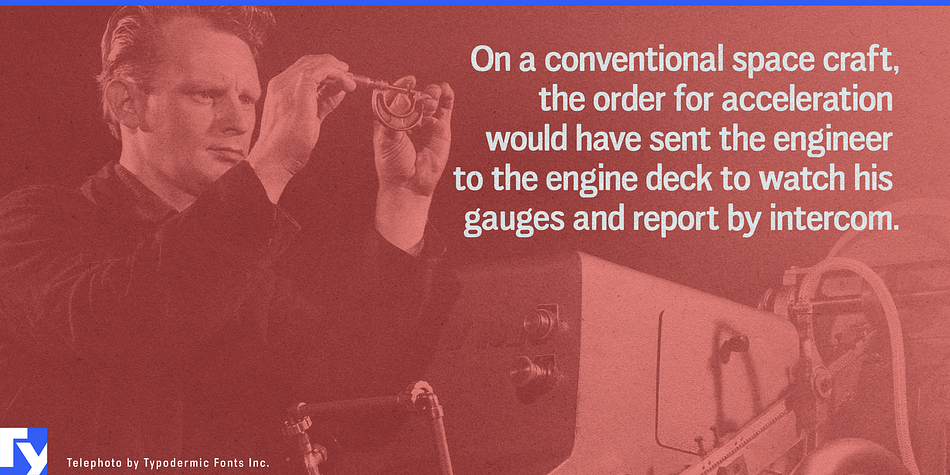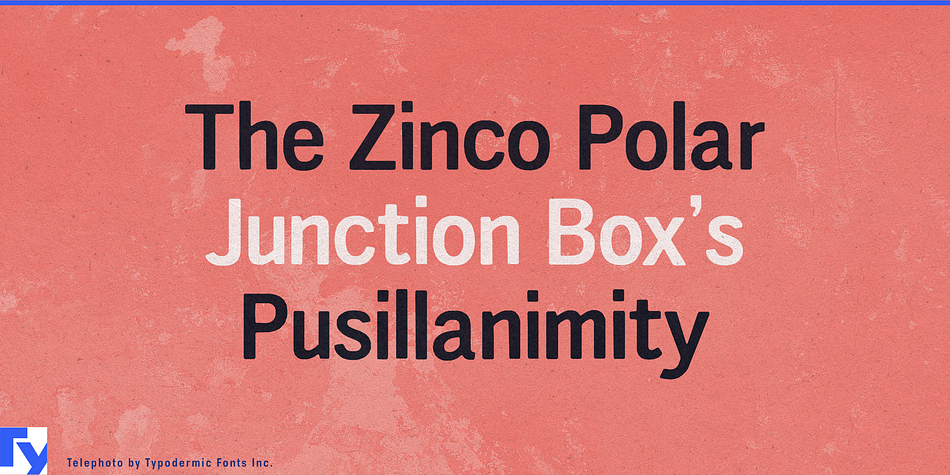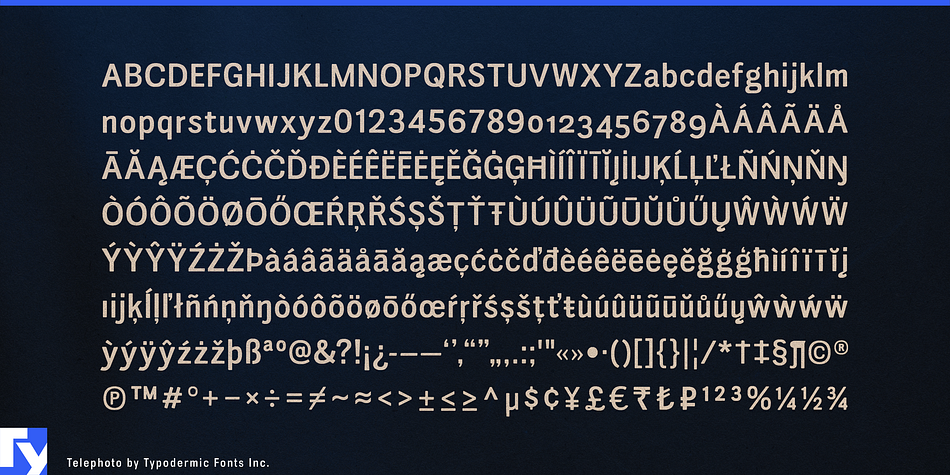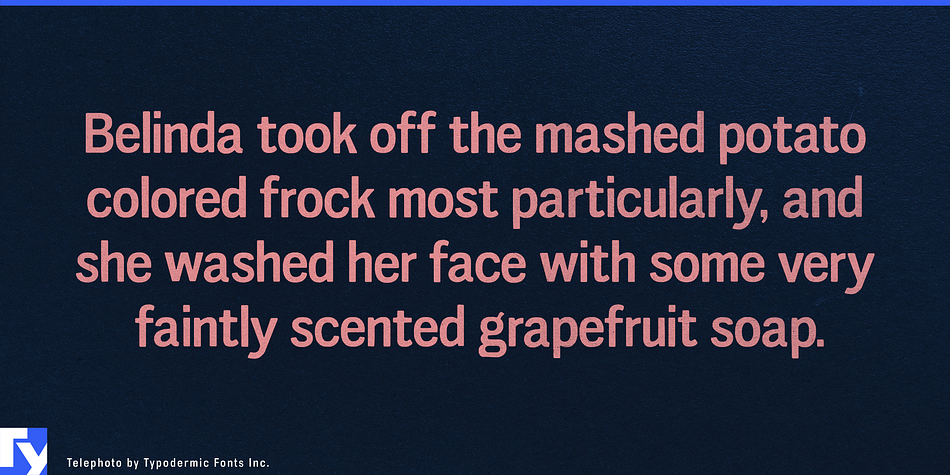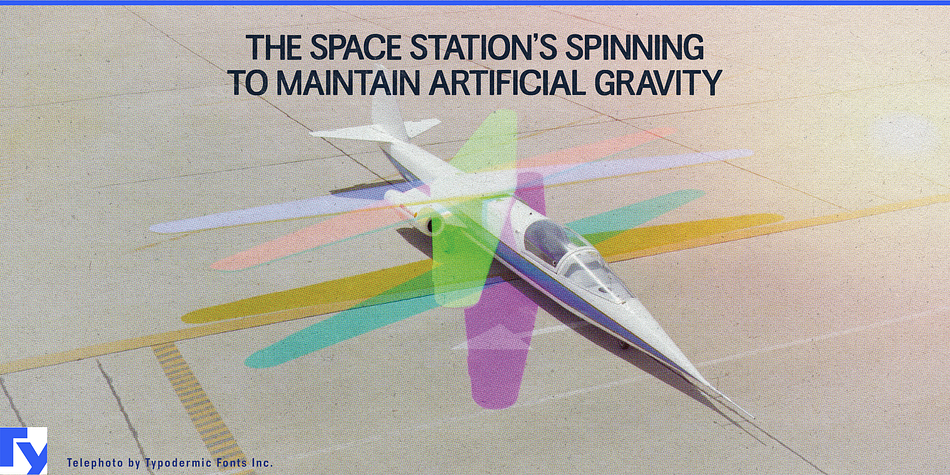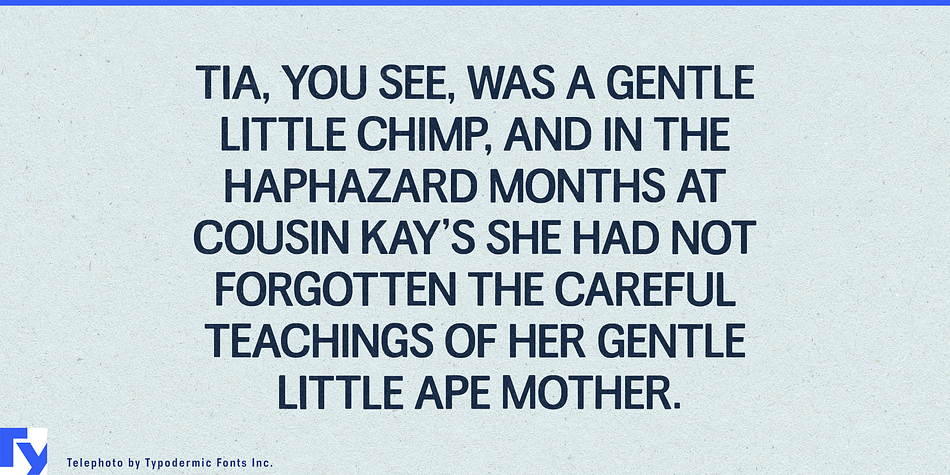
Telephoto is a sans serif font published by Typodermic Fonts Inc.
Telephoto is a 20th Century style grotesque with a soft, analog feeling. Class-based kerning is included as well as old-style numerals. In OpenType savvy applications, letters and numeral variations are automatically shuffled to create a more natural, analog look. The overall result is lettering that looks imprecise, like old-fashioned phototypesetting.